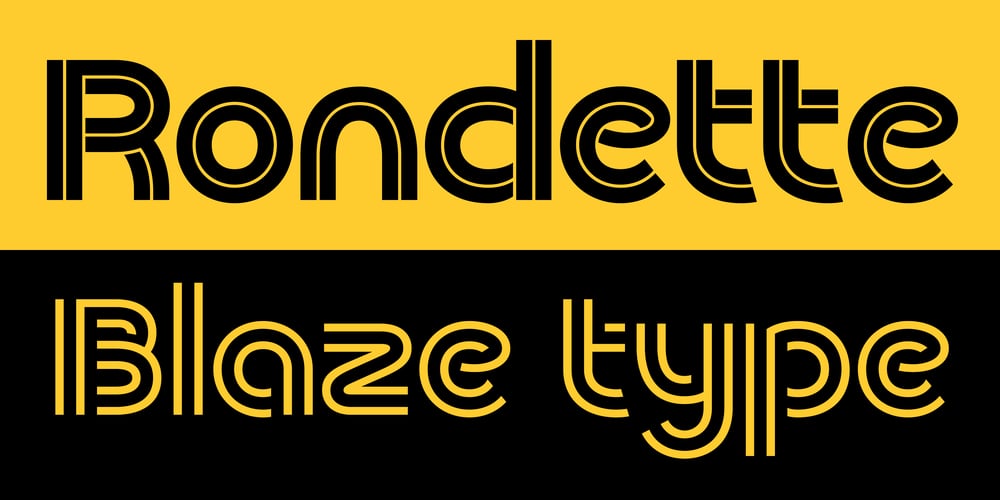
Rondette
Rondette font
Rondette Font Family was designed by Fabrizio Falcone and published by Blaze Type. Rondette contains 4 styles and family package options. Rondette’s design is steeped in historical references, bridging the timeless and the modern. Inspired by Joseph Churchward’s iconic Churchward Design 70 (No-End version) and the striking work of Unimark International for Agip in the 1970s, it also pays homage to the bold, geometric style of Herbert Bayer’s Universal alphabet and the clean, functional forms of 1930s sans-serifs like Futura and Kabel. From these roots, Rondette extends into the contemporary sports world, capturing the energy and precision of modern athletic aesthetics.Rondette is a display typeface available in four weights: Regular, Medium, Bold, and Black. It’s rich in stylistic alternatives—like the unique legs of the R and K, the distinctively shaped bowls of b, d, p, and q, and both single- and double-storey g’s—allowing for compositions that stand out with variety and flair. The typeface’s sharp diagonal cuts on letters like S, C, and G, combined with rounded elements in A, E, and F, give it a vibrant, athletic quality.